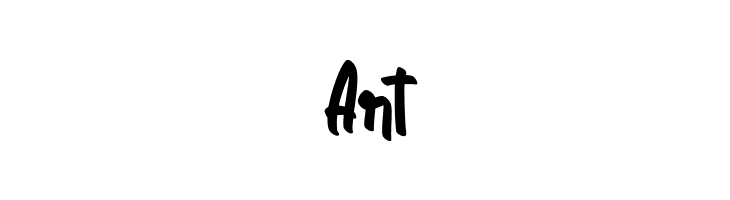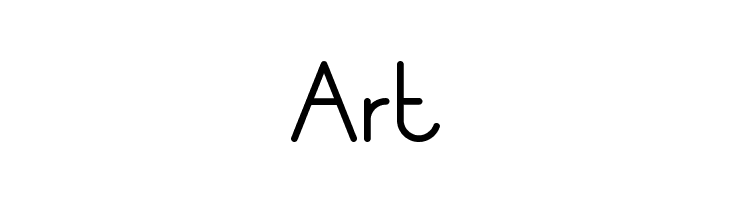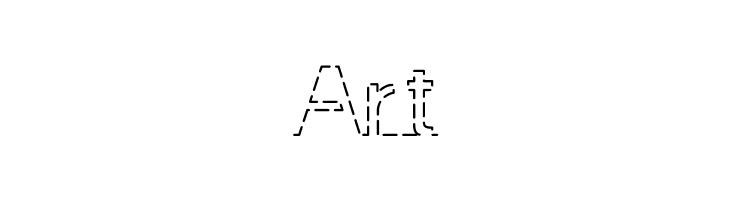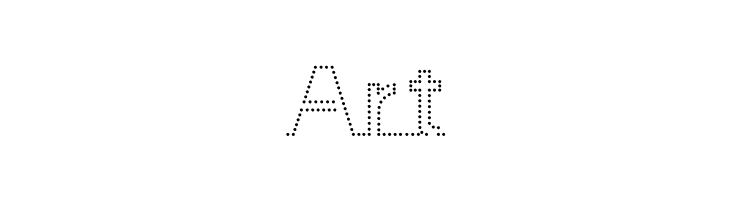
( Fonts by Xingjian Liang )
A bold, playful font with a hand-drawn, dynamic style.
( Peter Judson - peterjudson.com/ )
A modern, rounded sans-serif font with clean lines and balanced spacing.
( Peter Judson - peterjudson.com/ )
A playful, rounded typeface with bold, smooth curves and a friendly appearance.
( Peter Judson - peterjudson.com/ )
A sleek, ultra-thin font with a modern, geometric design.
( GroovyJournal - www.groovyjournal.com )
A playful, bold font with rounded edges and a hand-drawn feel.
A bold, distressed font with a vintage, textured appearance.
( Pisto Casero - Gilberto Moya Perona - www.pistocasero.com )
A playful dashed line font with a casual and creative style.
( Pisto Casero - Gilberto Moya Perona - www.pistocasero.com )
A decorative dotted font with a modern and playful aesthetic.
( Pisto Casero - Gilberto Moya Perona - www.pistocasero.com )
A modern, geometric outline font with a futuristic and digital aesthetic.